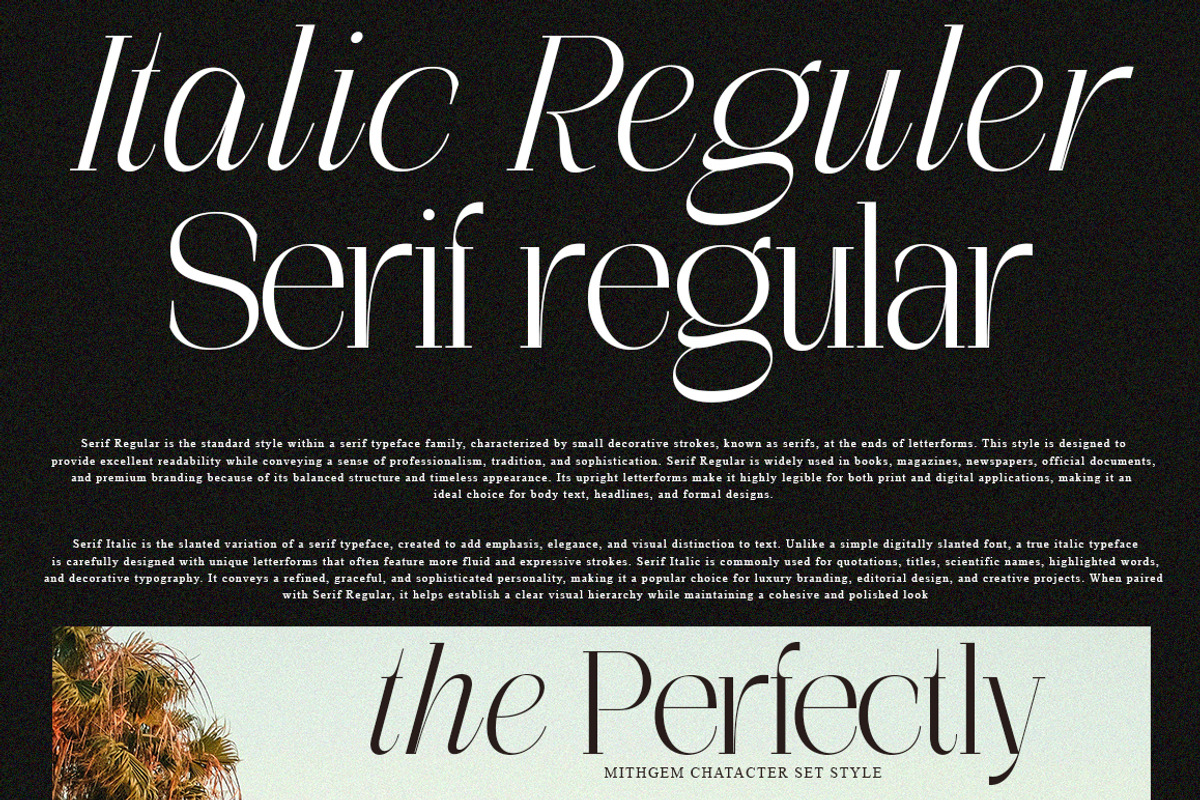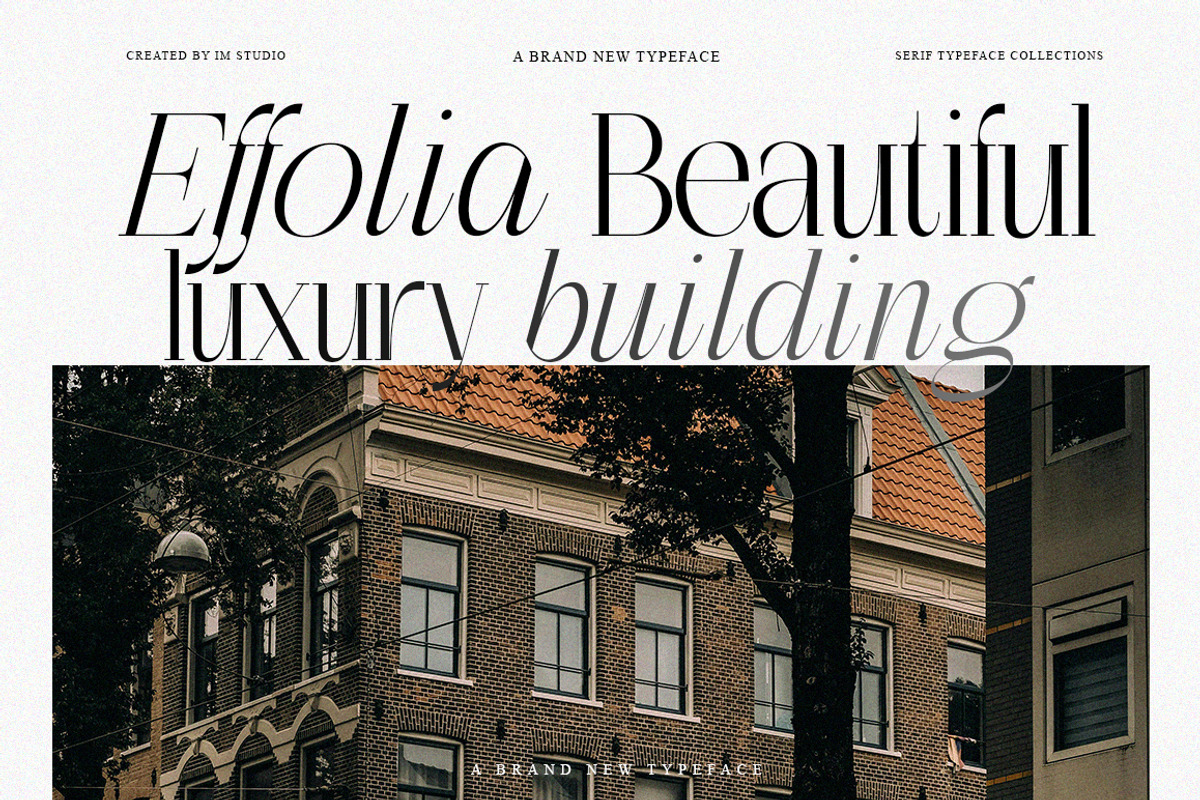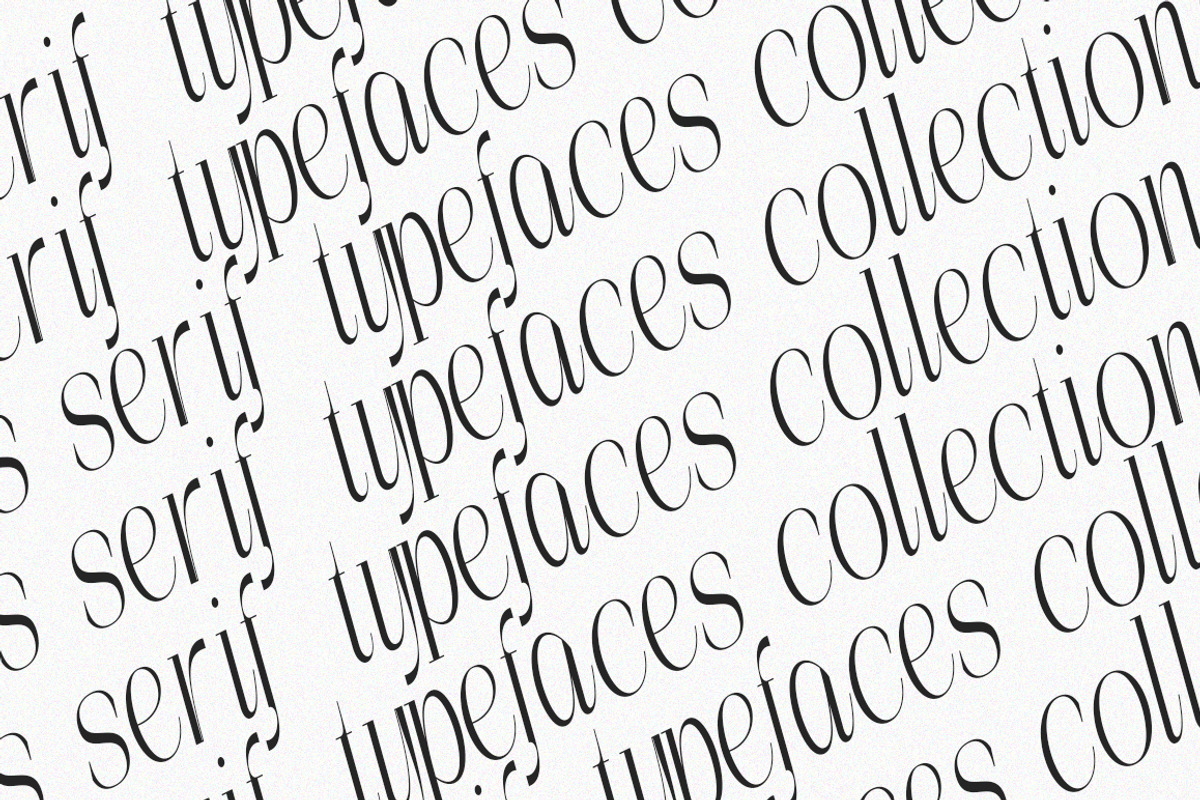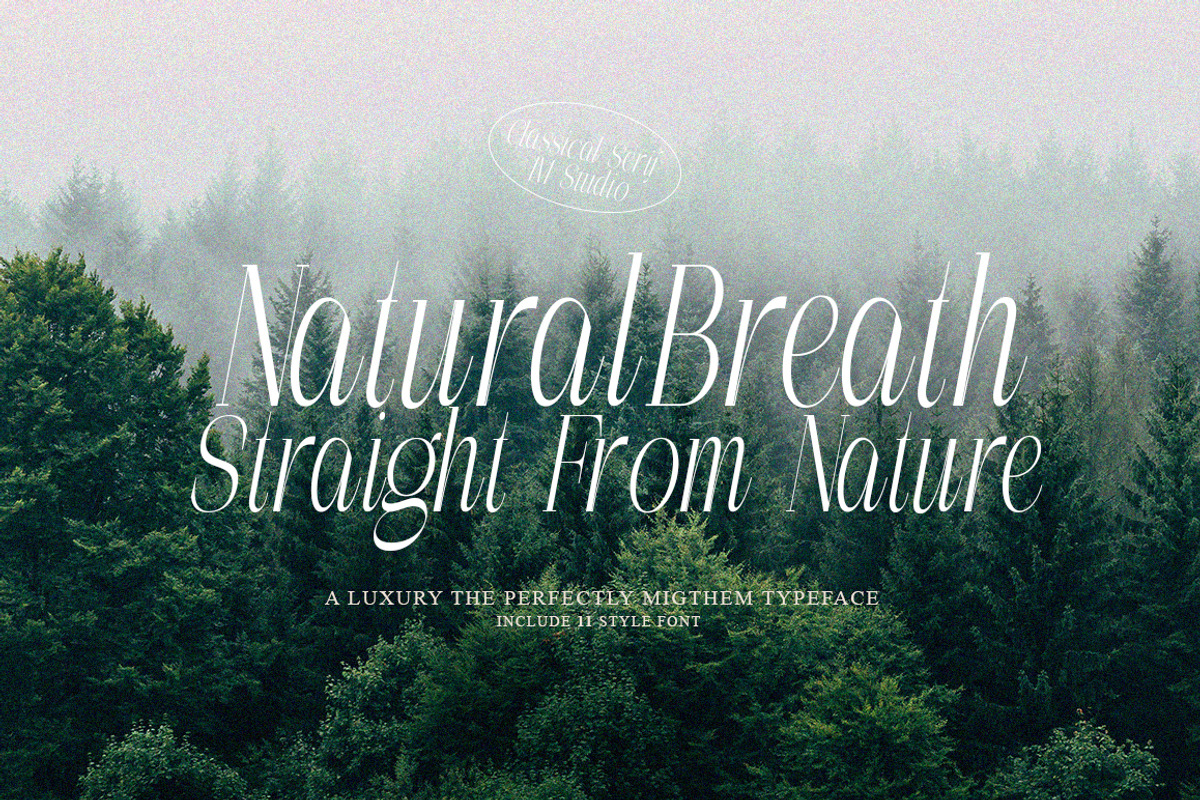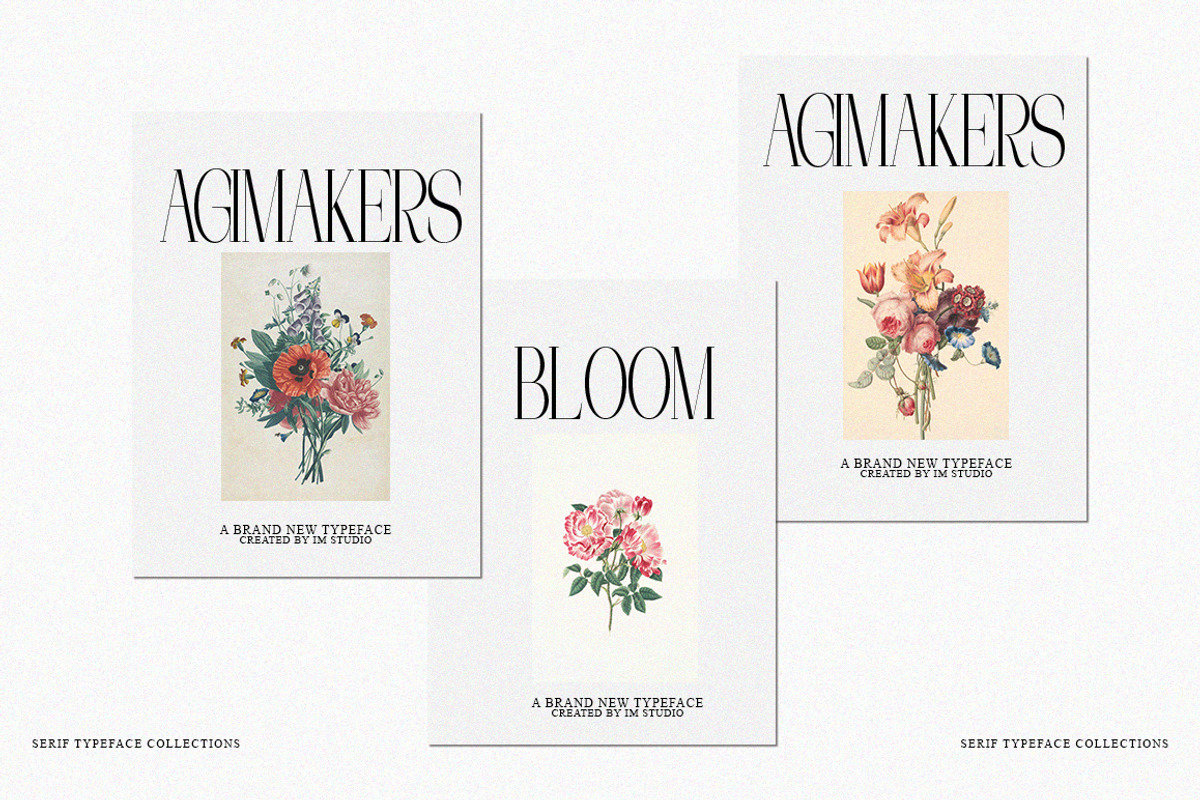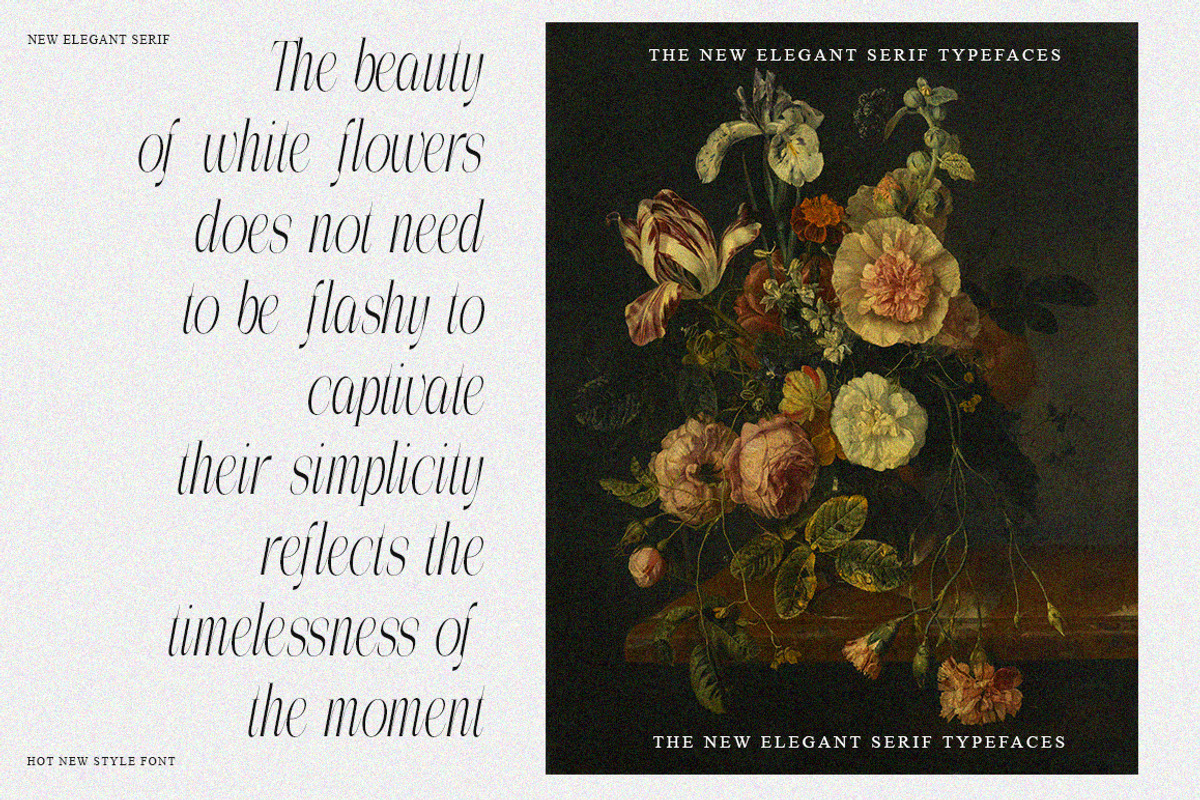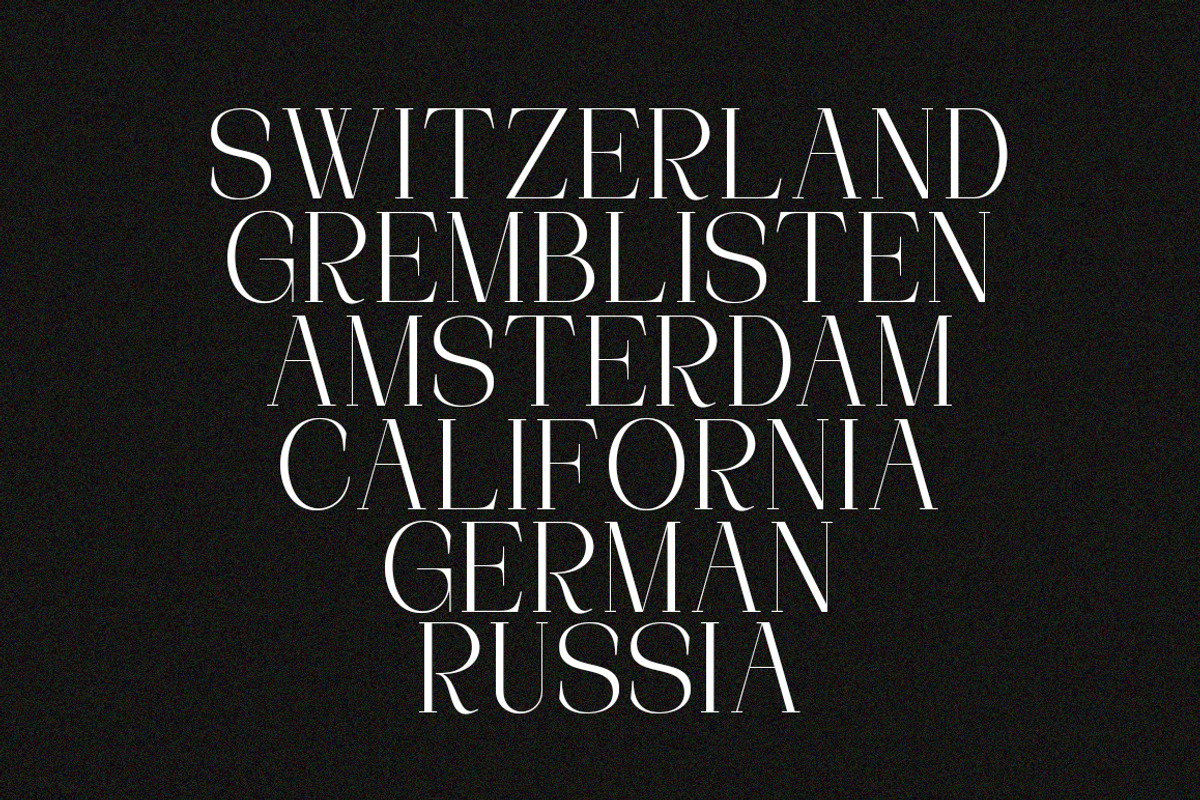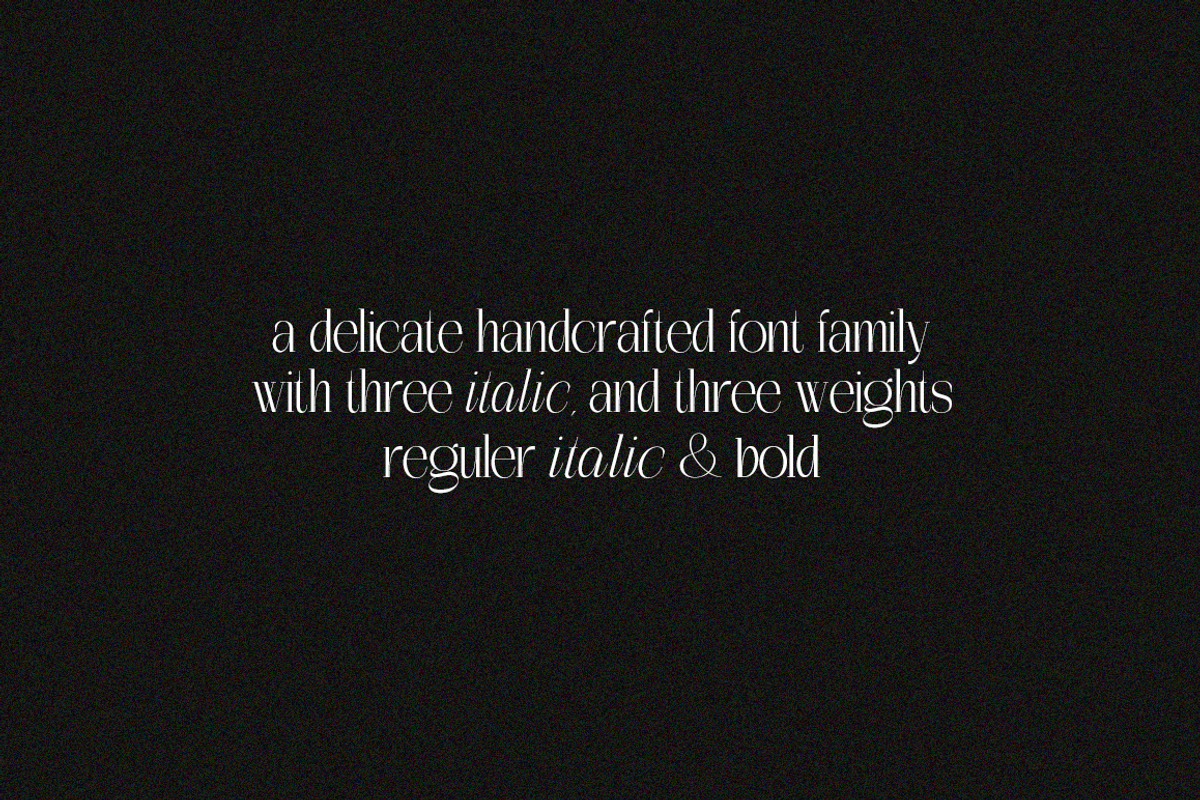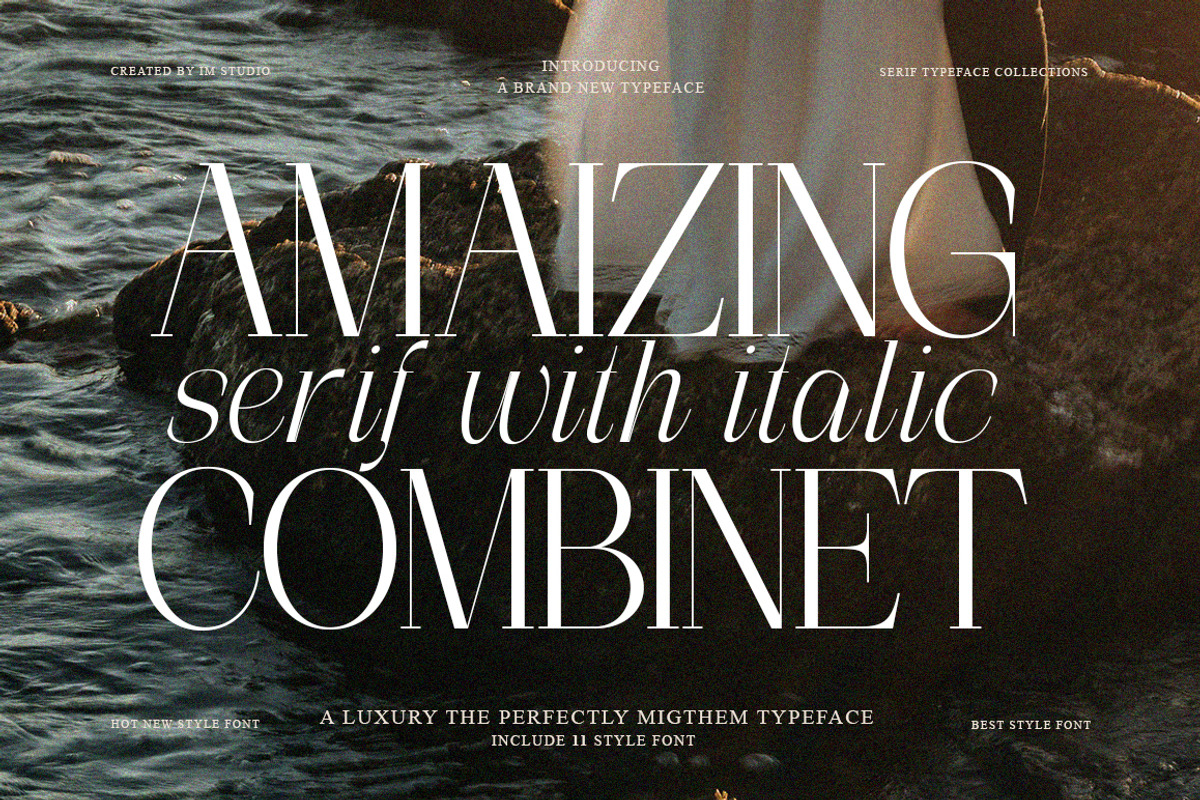
The Perfectly Migthem (11 Font)
The Perfectly Migthem — Editorial Serif | 11 Fonts
A serif with soul. Perfectly Migthem draws from the golden age of print — vintage publications, mid-century advertising, iconic signage — and brings that unmistakable retro authority into contemporary design.
This isn't just a font. It's a complete typographic system built for designers who want character without compromise.
What's Inside: ✦ 11 Fonts Total — 5 Weights + 6 Matching Italics ✦ Elegant Ligatures for refined typographic details ✦ OTF + TTF formats included ✦ Extended Multilingual Support ✦ Timeless yet completely current
Built for real creative work. Brand identities, editorial layouts, luxury packaging, book covers, poster design — Perfectly Migthem performs across all of it. From ultra-light strokes to heavy display weights, every cut is designed to make a lasting impression.
Whether you're an art director, brand designer, or type enthusiast — this is the serif that does the heavy lifting.
Classic roots. Modern reach. Perfectly Migthem.